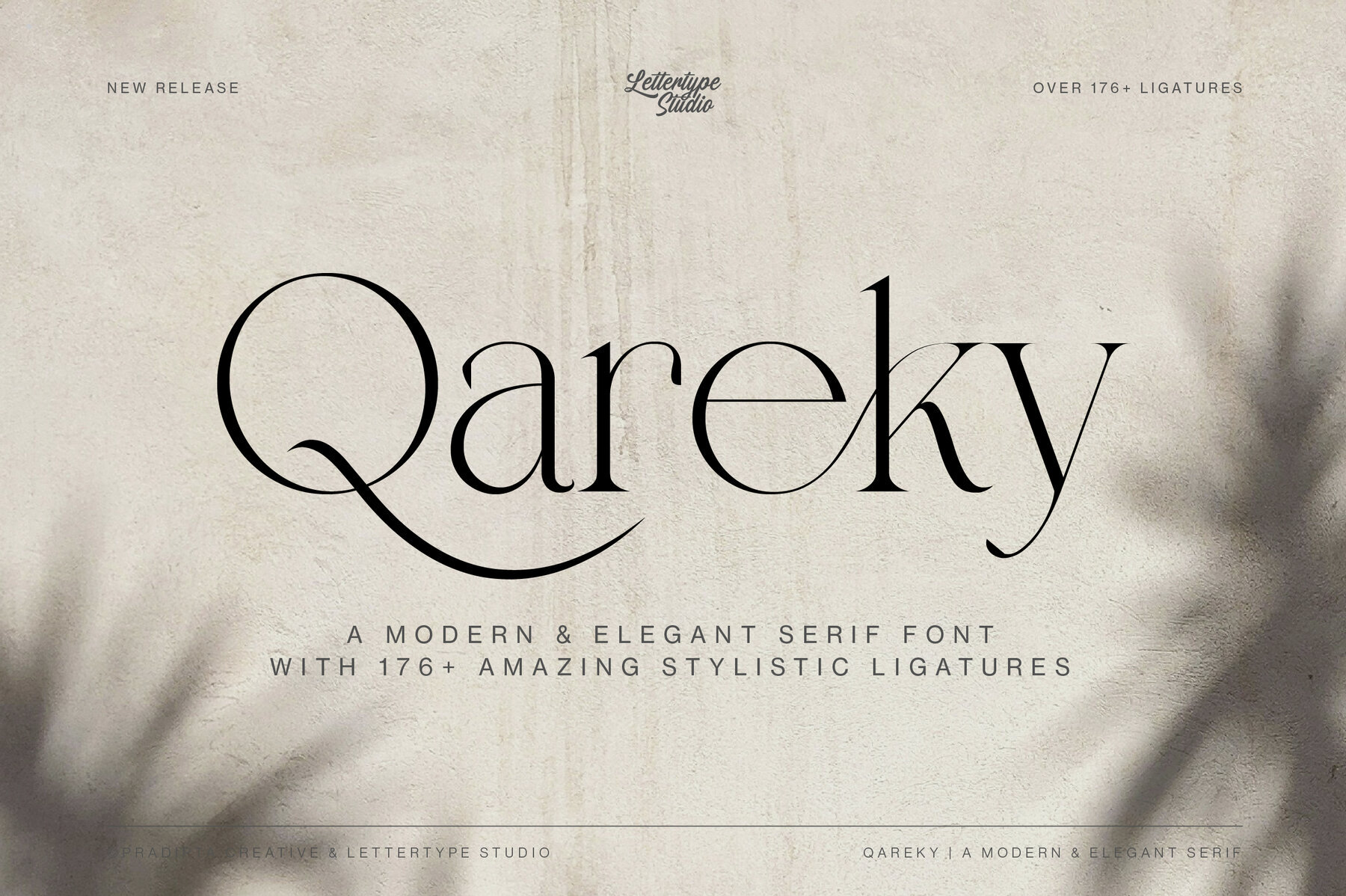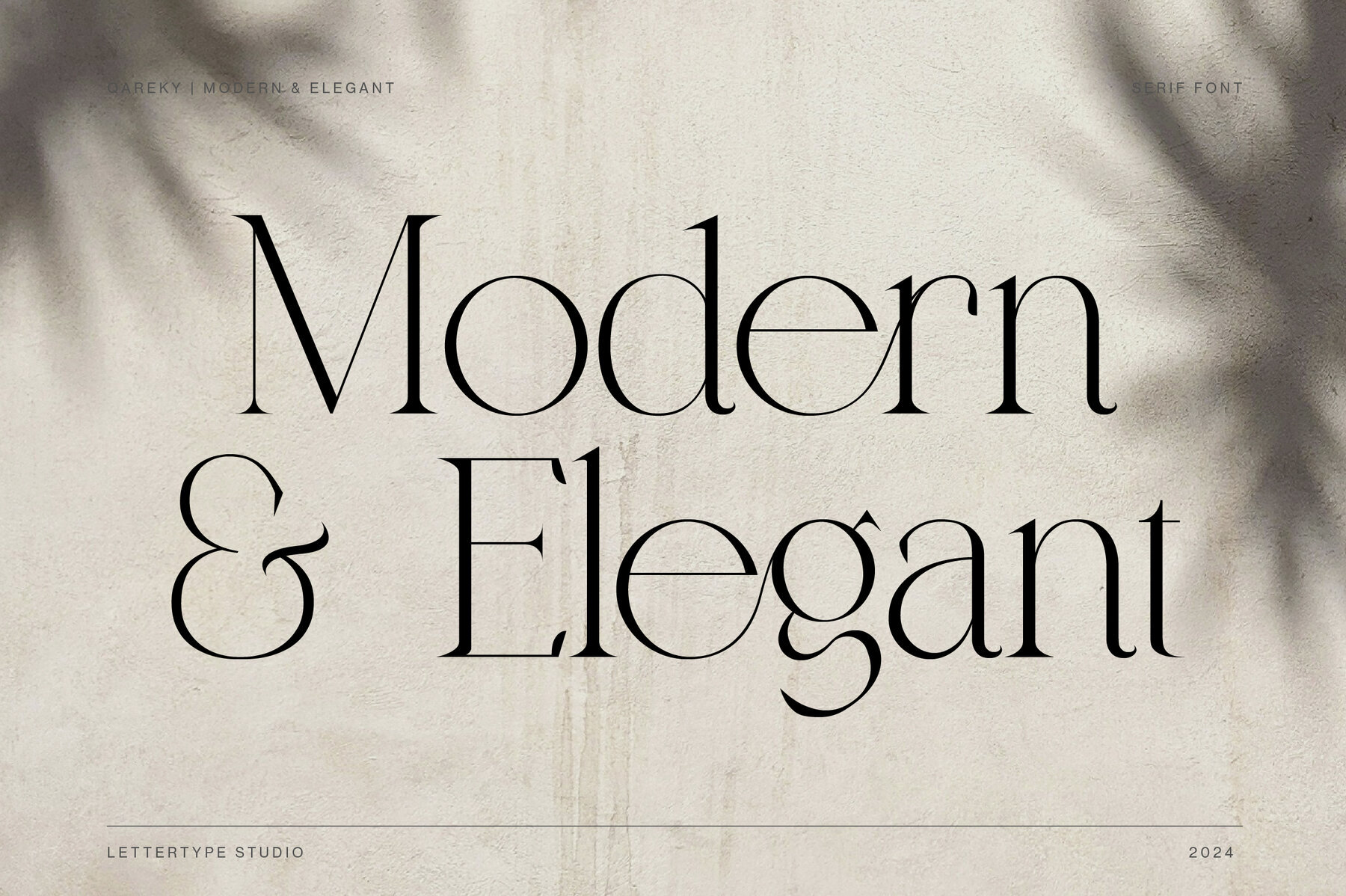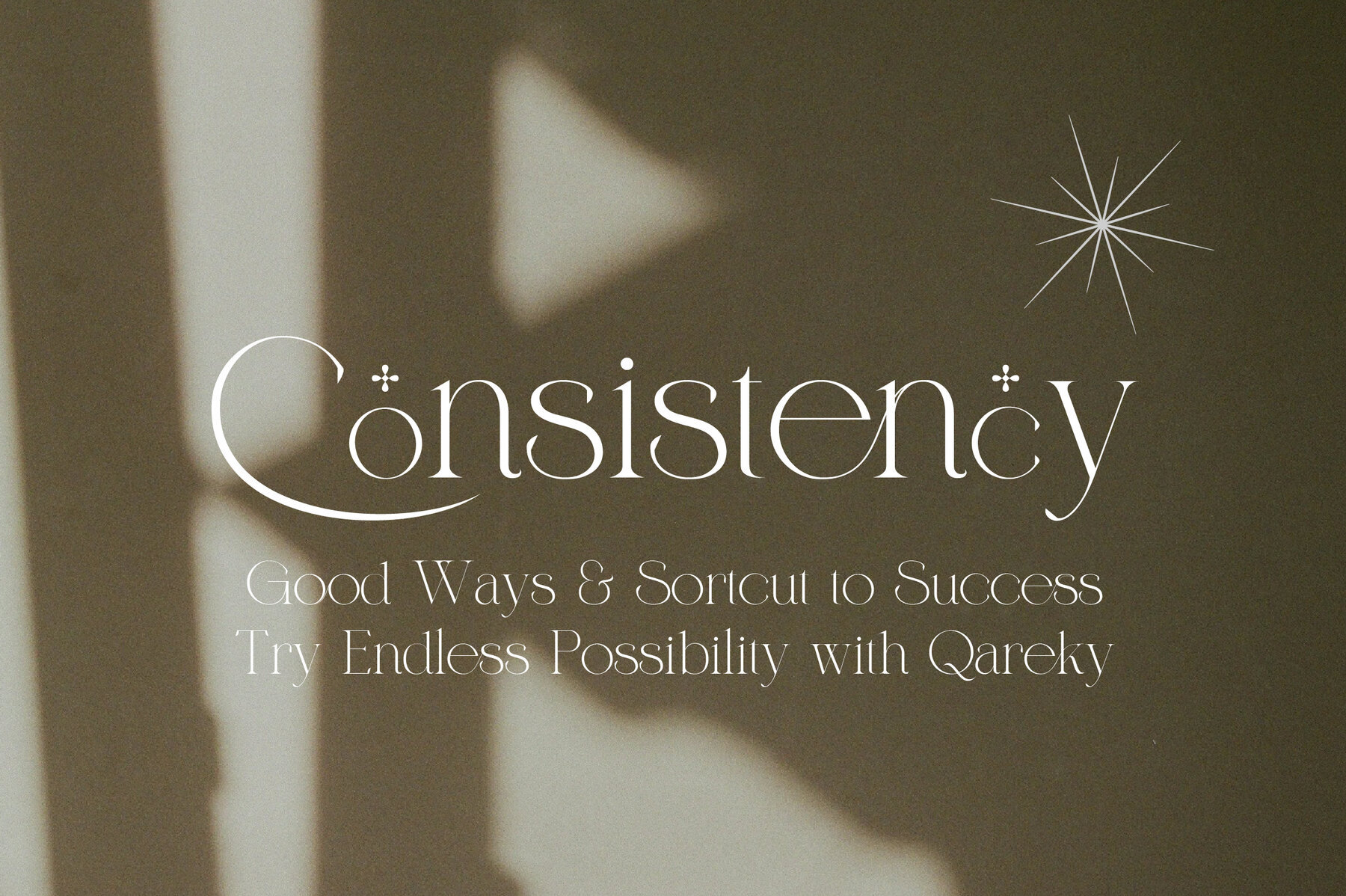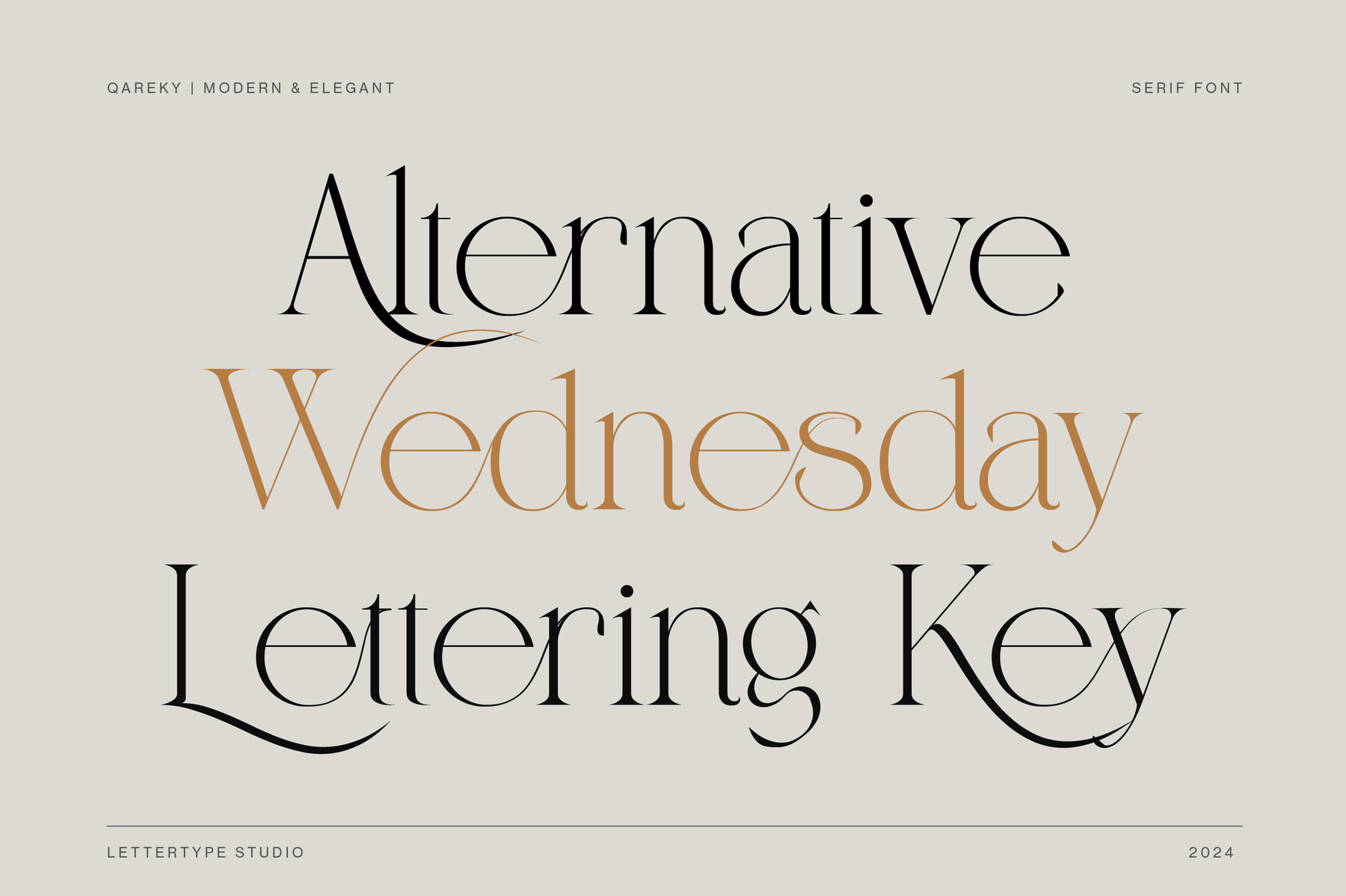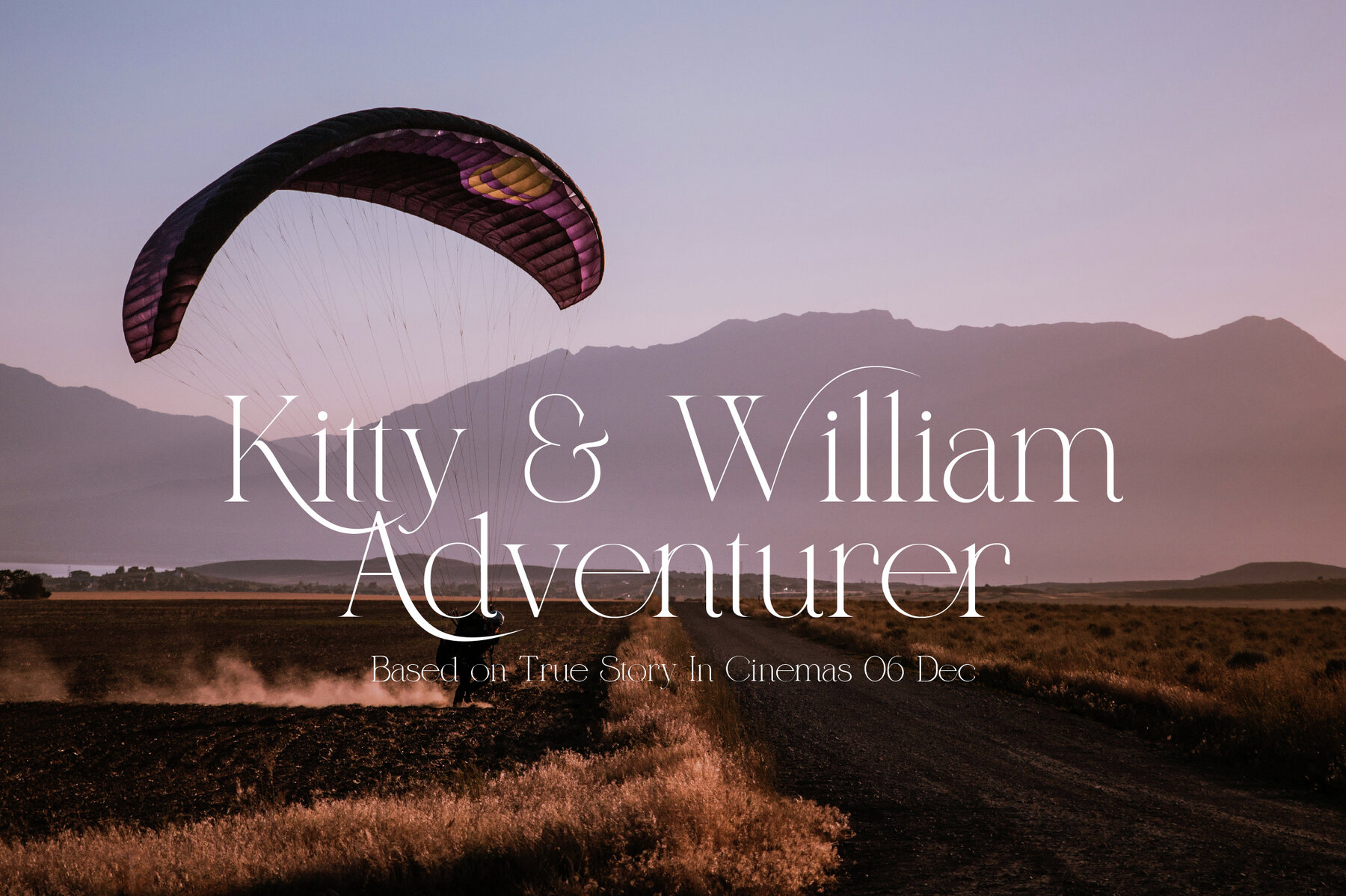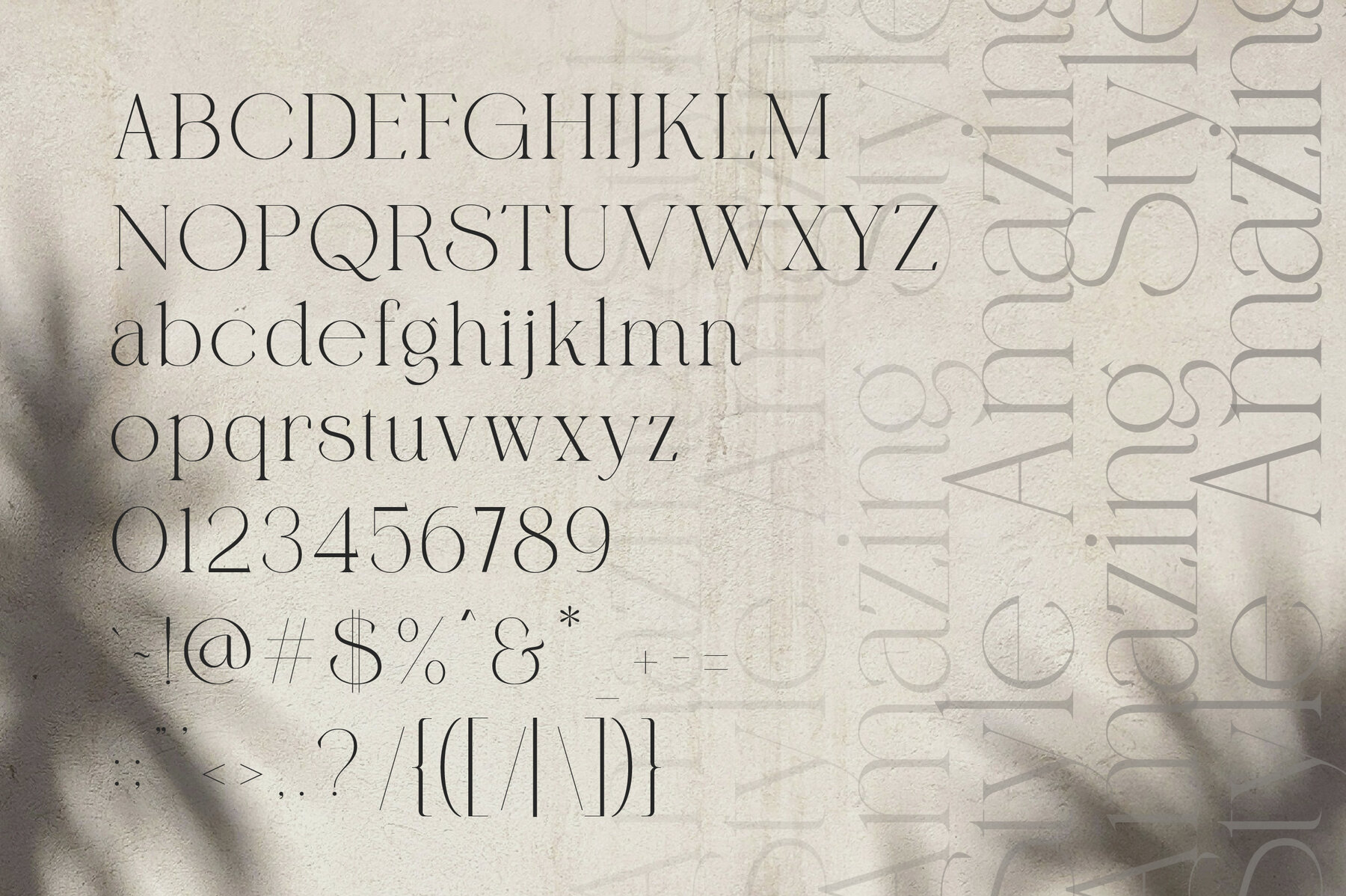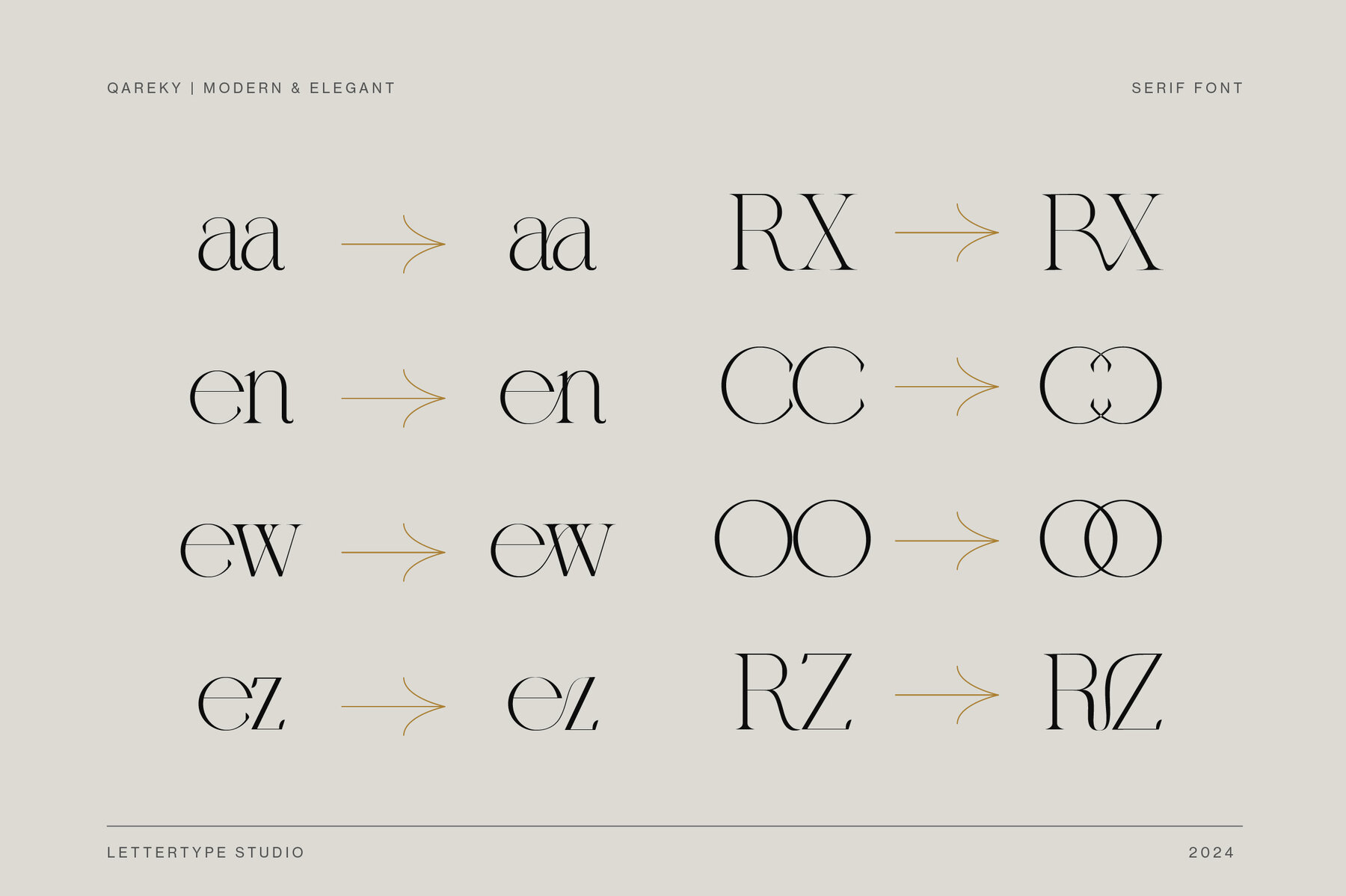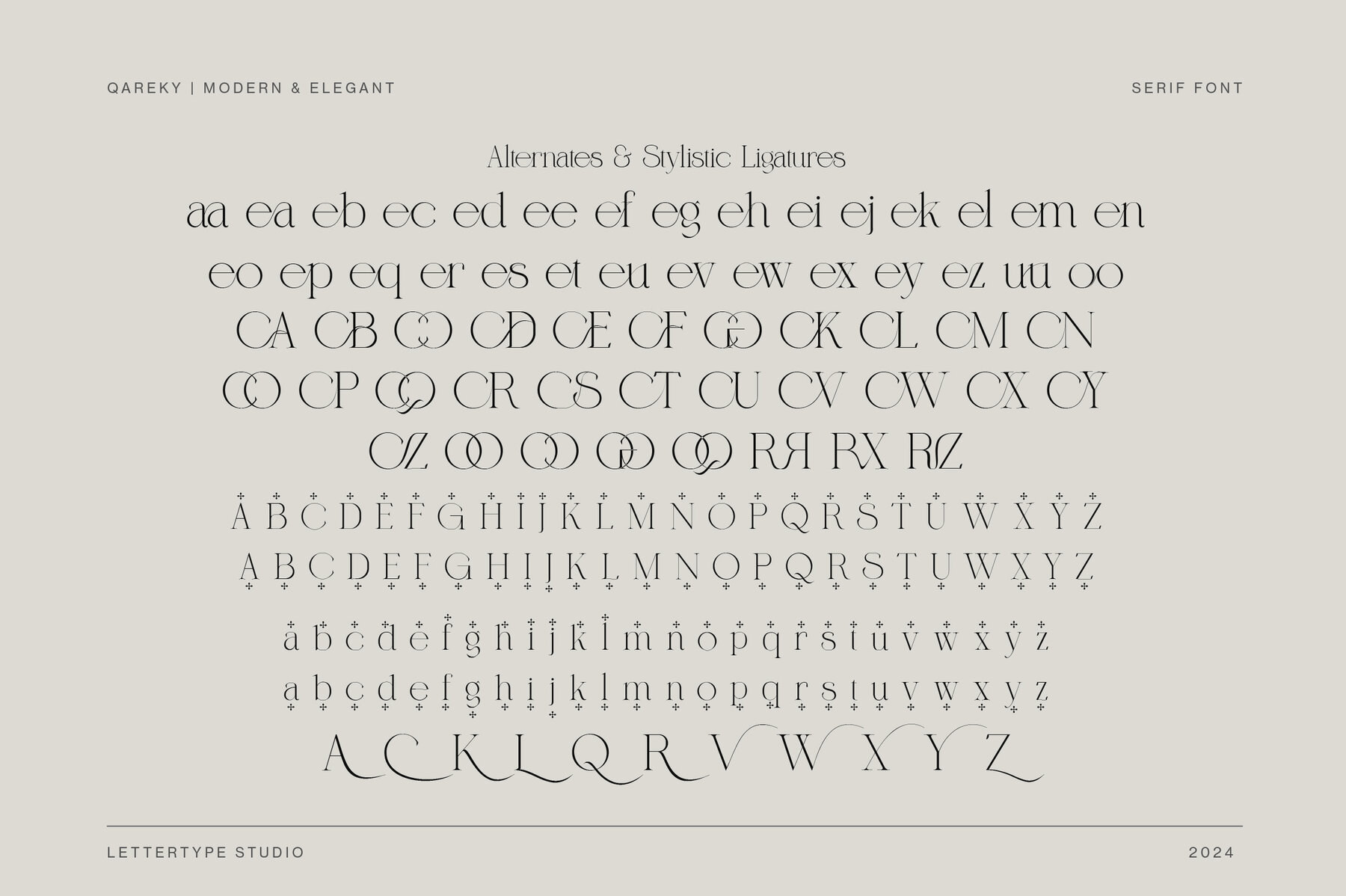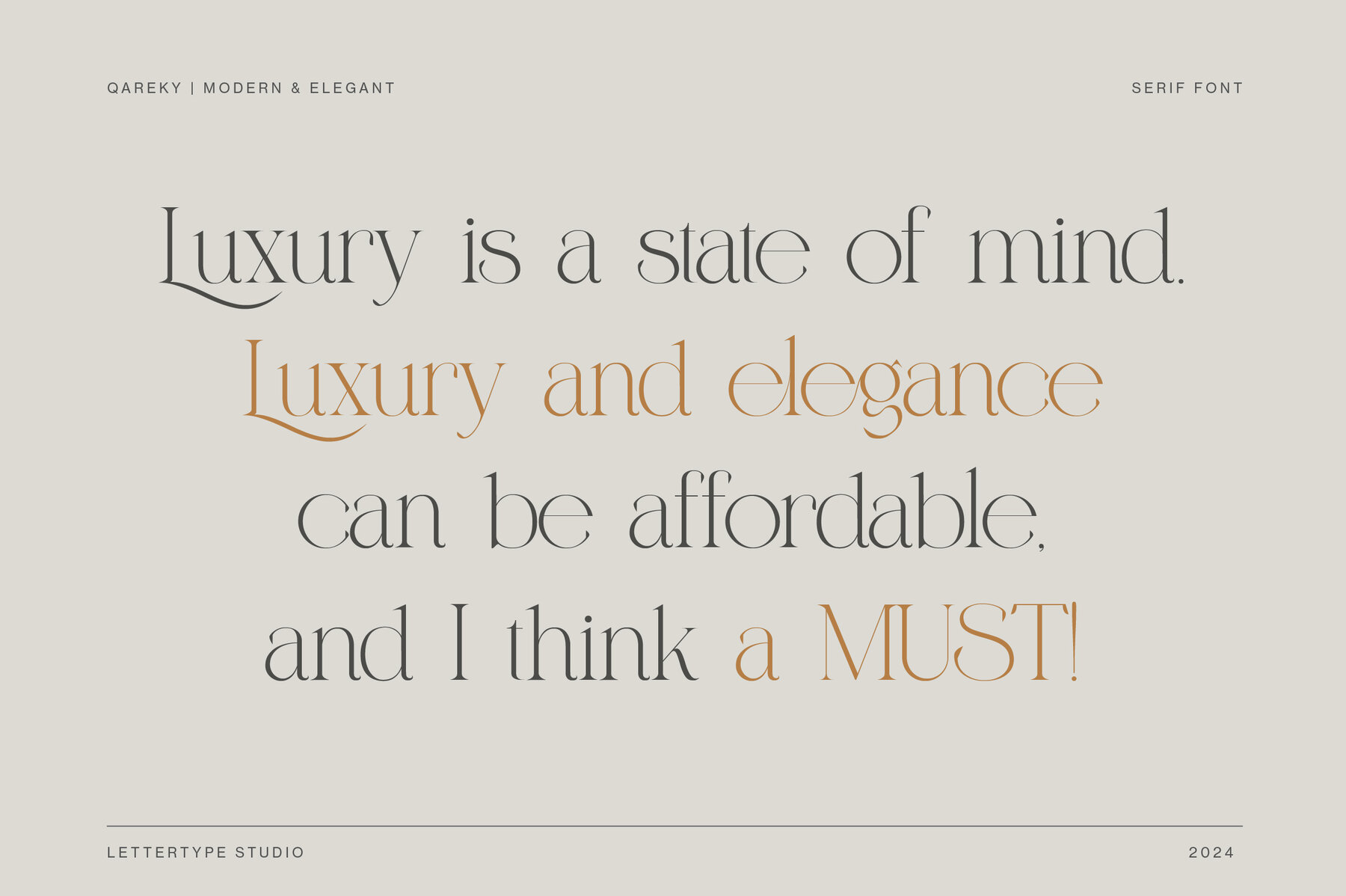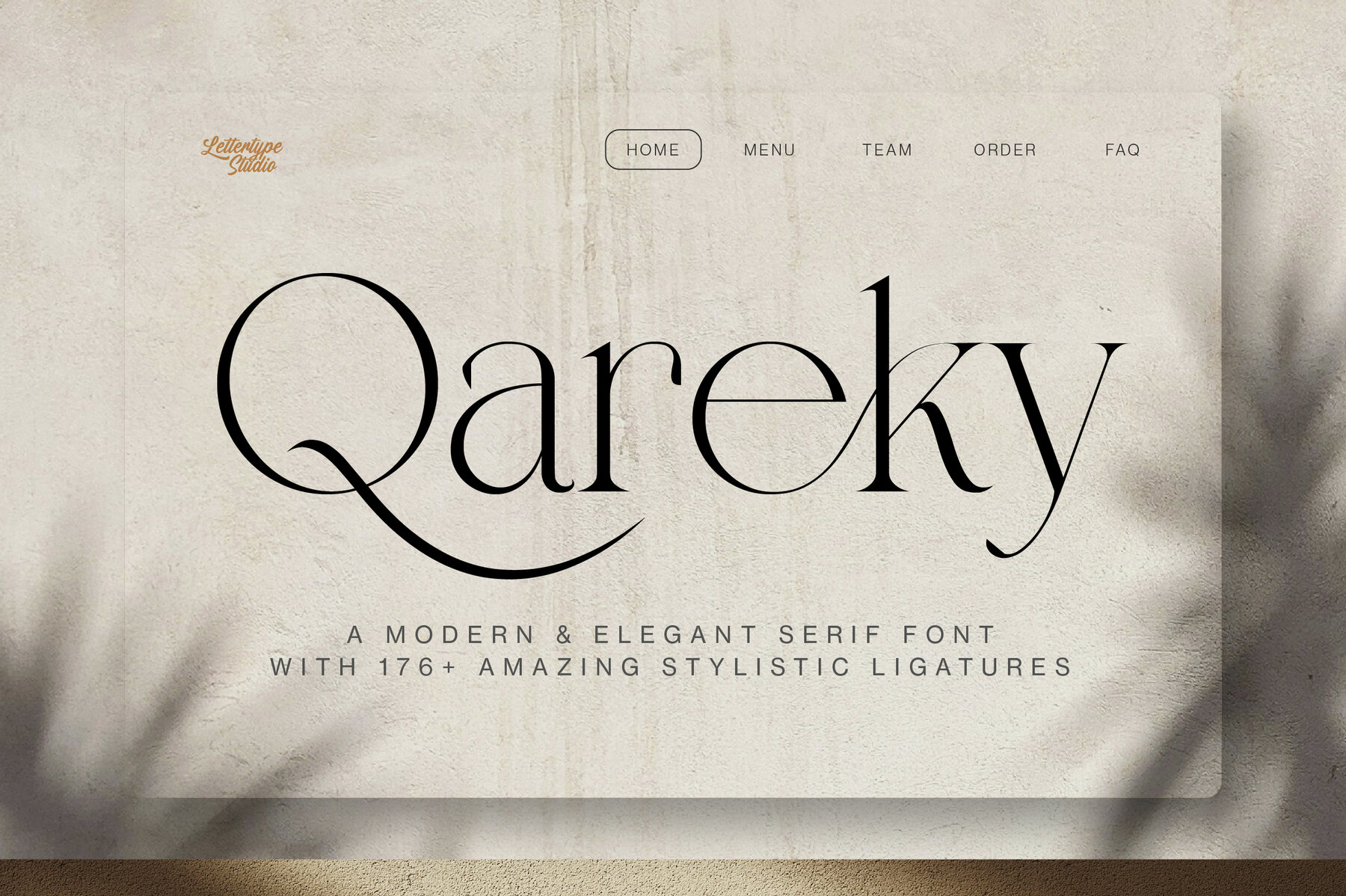
Qareky Font
Qareky Regular
Qareky brings a fresh take on classic serif design, drawing inspiration from 18th-century typography while introducing modern, elegant details. Its clean lines and geometric touches make it suitable for sophisticated branding, editorial projects, and refined web typography. Qareky balances timeless appeal with a sense of luxury, ensuring your work maintains a polished and distinctive look. The Qareky font family includes 18 styles—normal and italic—making it a versatile choice for both large display text and smaller body copy. With over 120 unique ligatures and extensive multilingual support, Qareky adapts seamlessly to a range of design requirements. Its range of weights and thoughtfully designed alternates put creative flexibility at your fingertips.Qareky Serif Font Family